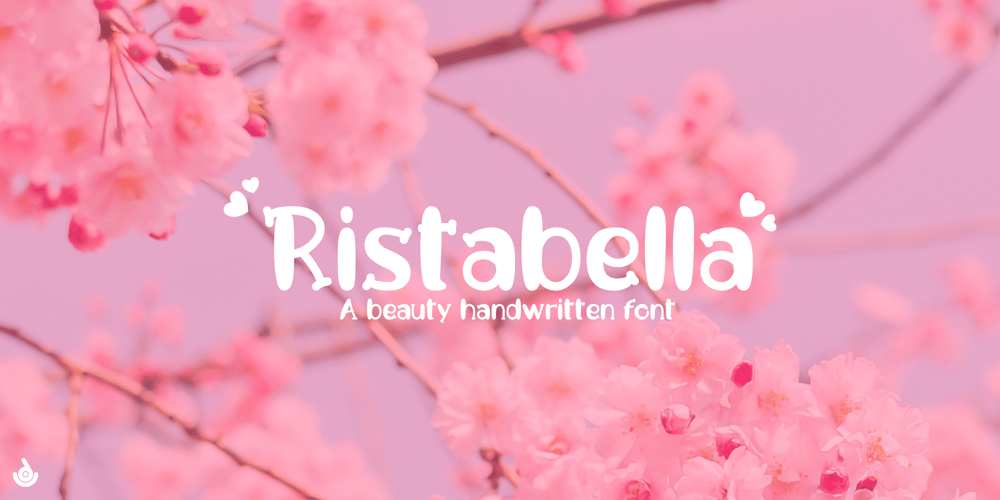
Ristabella Font Family was designed by Monotype and published by Coredeon. Ristabella contains 1 styles and family package options. inspired by my beloved wife’s handwriting, starting with a scribble, consists of thick and thin linesThese fonts are suitable for letter writing, decoration, display, birthday, wedding and for logos